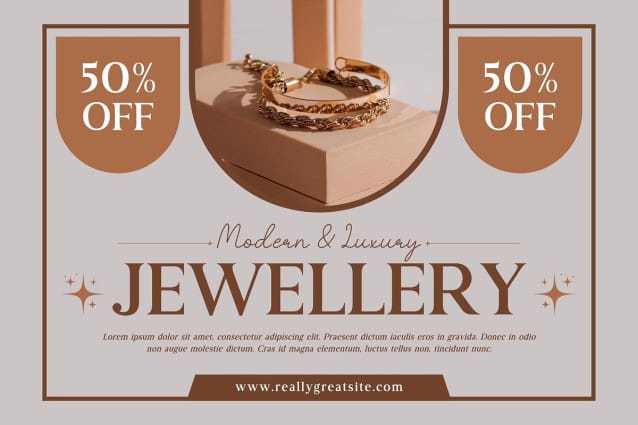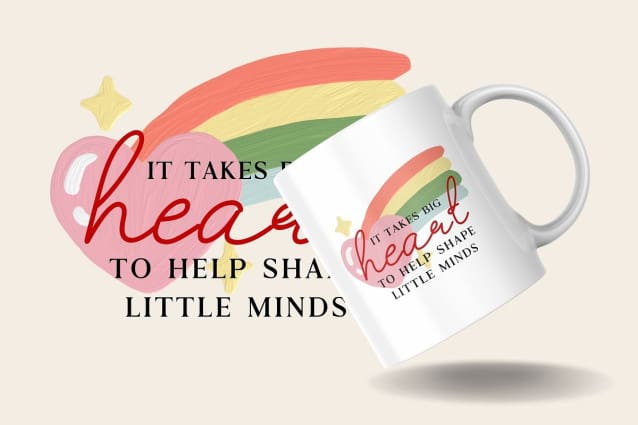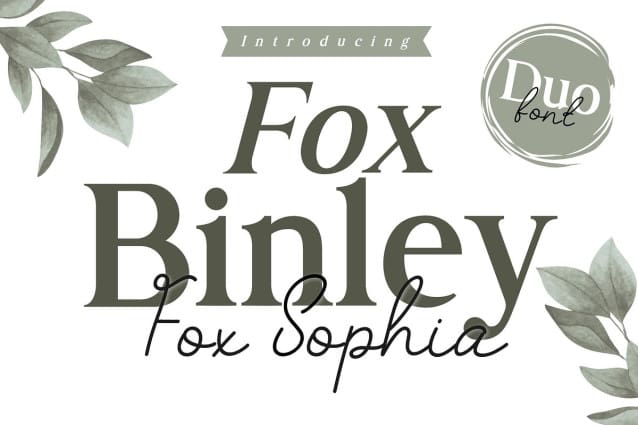
Fox Binley And Fox Sophia Font Duo
Fox Binley And Fox Sophia Font Duo –  A Duo Font set that combines elegance with personality. Fox Binley is a classic serif font, offering a bold and sophisticated look, ideal for making a strong statement. Fox Sophia is a soft, cursive script font that adds a touch of warmth and creativity, perfect for balancing the serif’s boldness. Together, they create a versatile pair suitable for branding, logos, invitations, and various creative projects. The leaf illustrations and soft green tones enhance the natural and stylish aesthetic, making it perfect for elegant, organic-themed designs.